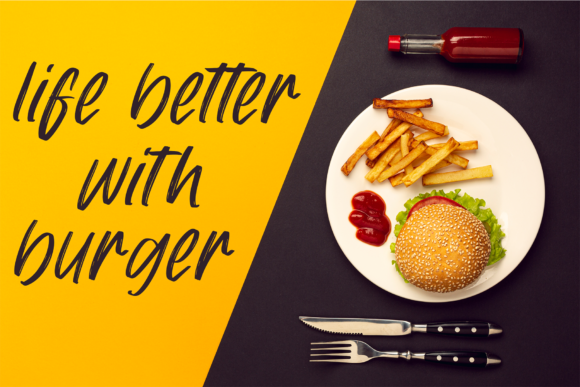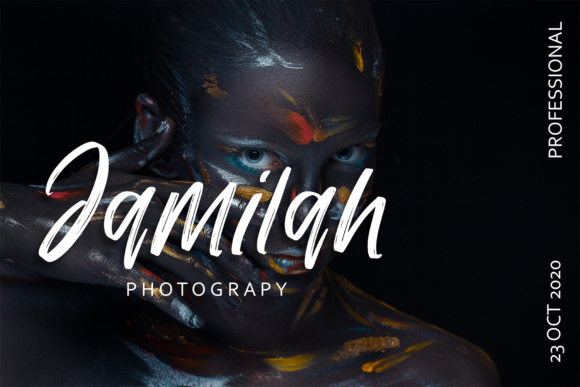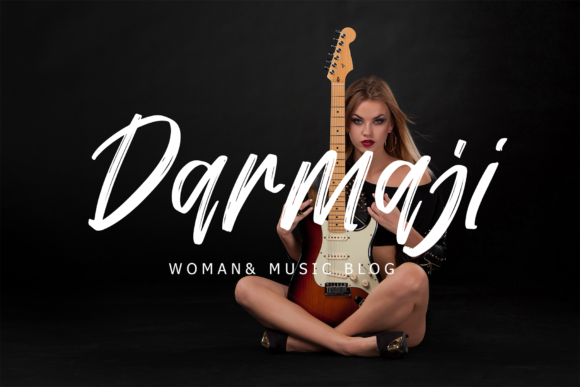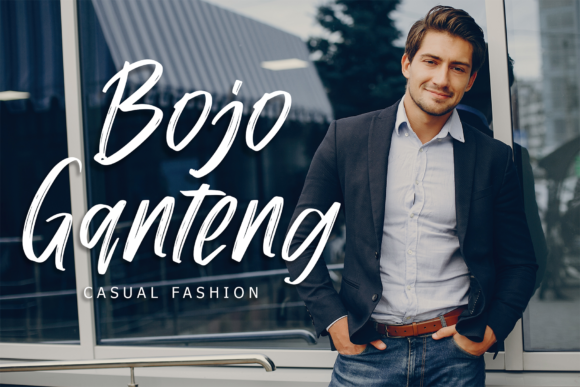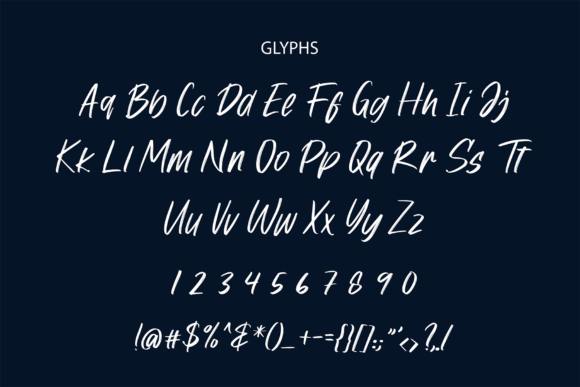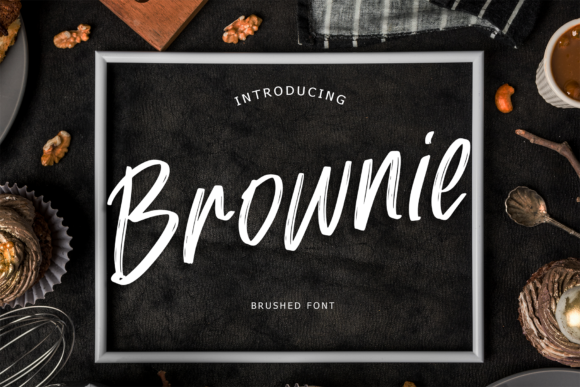
The Brownie Font: A Deliciously Handwritten Addition to Your Designs
I’ll never forget the time I was working on a wedding invitation project, and my client asked for a font that would make their guests feel like they’re reading a personal letter from their favorite aunt. I scoured the internet, tried out a dozen fonts, but nothing seemed quite right. That was until I stumbled upon the Brownie font. With its flowing, handwritten strokes, it was like the perfect ingredient had finally been added to my design recipe.
An Honest Review of Brownie Font
What I Love About Brownie Font
• ✨ Beautifully crafted letters: Each letter in the Brownie font is carefully designed to look like it was written with a brush pen, giving it a unique, hand-crafted feel.
• ✅ Versatile: Whether you’re designing wedding invitations, thank you cards, quotes, or logos, Brownie font fits right in.
• 💕 Emotional connection: The handwritten nature of the font creates an instant emotional connection with the reader, making your designs feel more personal.
While Brownie font is amazing for adding a personal touch to your designs, there are a few things to keep in mind:
• ⚠️ Legibility at small sizes: Like many handwritten fonts, Brownie can get a bit tricky to read at very small sizes. It’s best used at larger sizes where its beauty can shine.
• 🤔 Pairing with other fonts: Because of its distinctive style, you’ll want to pair Brownie with fonts that complement it without competing. Simple, clean fonts usually work best.
4. Explore OpenType features and glyphs for additional customization options. For example, you can use stylistic alternates to change the look of certain letters or words.
Brownie font comes with a range of OpenType features and glyphs that can enhance your designs. Here are a few tips on how to use them:
• Stylistic Alternates: These allow you to swap out certain letters or numbers for stylistic variations, adding more personality to your text.
• Ligatures: Brownie font includes ligatures, which are special character combinations that can help improve the flow of your text.
• Glyphs: The font also includes a range of glyphs, such as flourishes and ornaments, that can be used to add decorative touches to your designs.
Backstory: The Inspiration Behind Brownie Font
The Brownie font was created with the help of a brush pen, giving it that authentic handwritten feel. The designer aimed to create a font that would bring a personal touch to any project, making it perfect for designs that need a bit of warmth and character.
Is Brownie font suitable for body text? While Brownie is stunning for headings and short paragraphs, it’s not ideal for long body text due to its decorative nature and potential legibility issues at smaller sizes.
Does Brownie font support multiple languages? Brownie font includes a range of characters and supports various languages, but it’s best to check the specific language support to ensure it meets your needs.